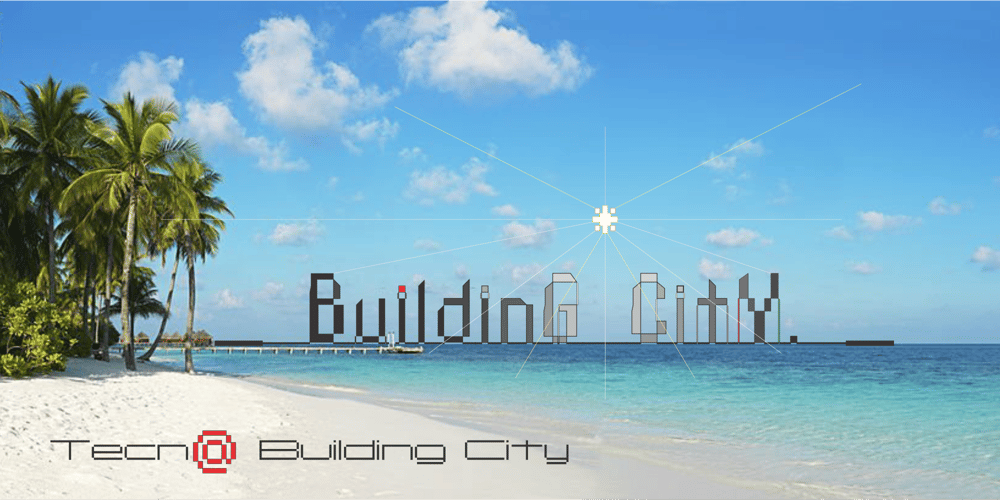
Tecna Building City Font Family was designed by Jorge Clavo and published by Descarflex. Tecna Building City contains 1 styles and family package options. The Tecn@ BC (Building City) family’s design was inspired by the Downtown of a Metropolis City surrounded by buildings and real estate structures. Each uppercase or lowercase character represents a building with a unique design, which when forming a word or in an entire piece of writing, the user would be composing their own city.